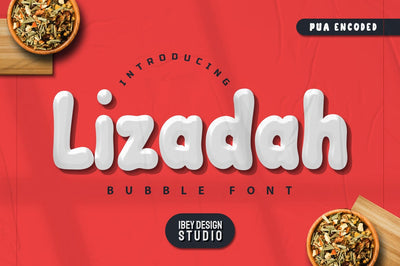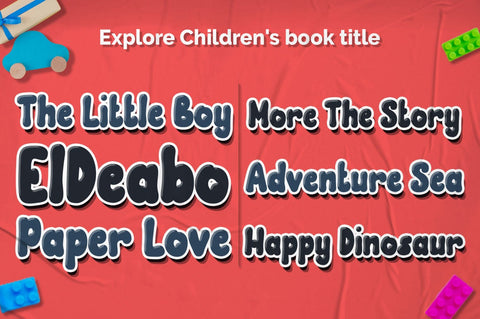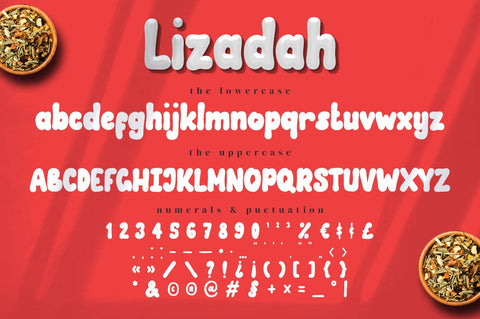
Lizadah - Bubble font
Lizadah Bubble font is a cool, trendy, and bubbly display font. It embodies playfulness and authenticity and is the perfect choice for any children's activity or school project.